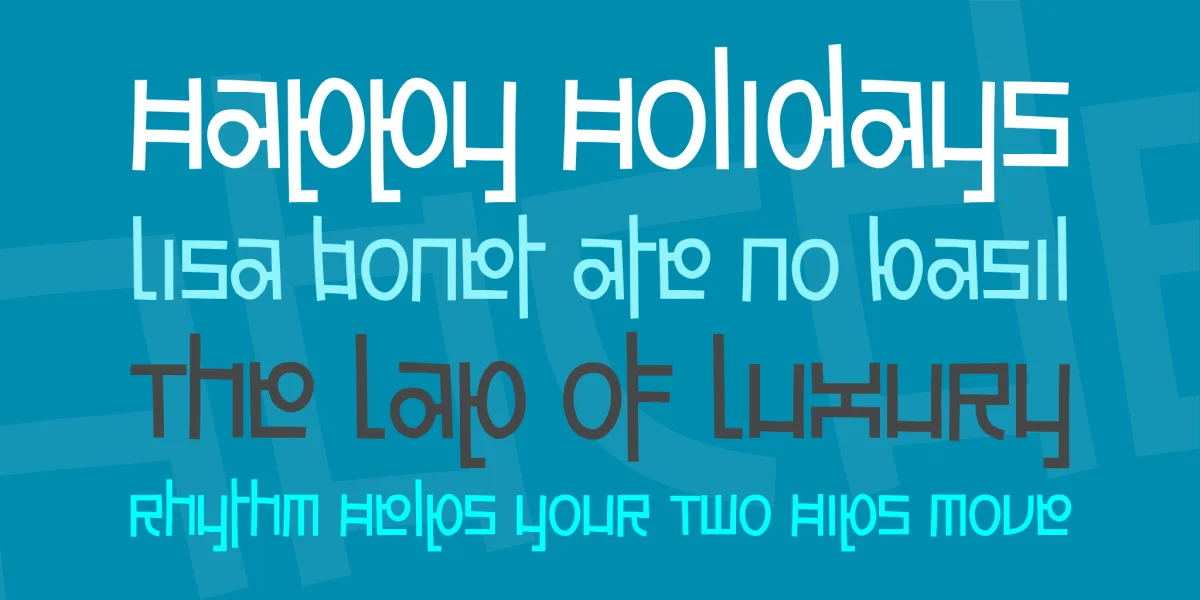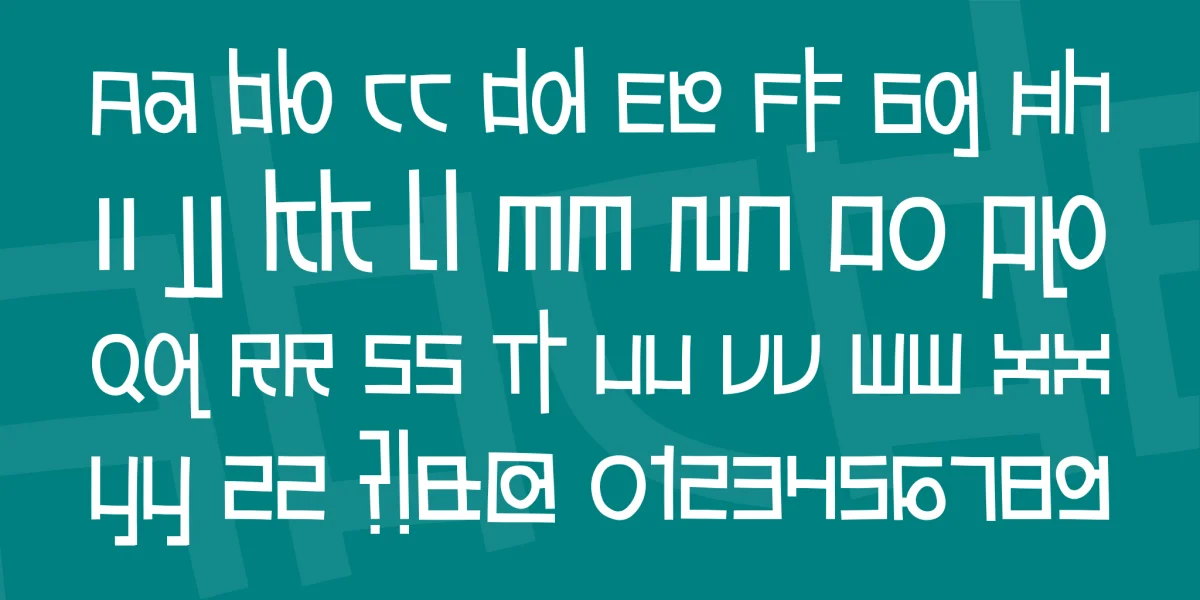
South Korea is great country. (South) Korean waves that happened recently had influenced the world. Indonesia is one of country that effected a lot. There were so many boybands and girlbands established. Fashion changed into Korean style. There's so many butiques, outlets sell Korean fashion. Korean music can be found easily on TV. It's a big deal. And all of it inspire me to create this font! :) Enjoy!